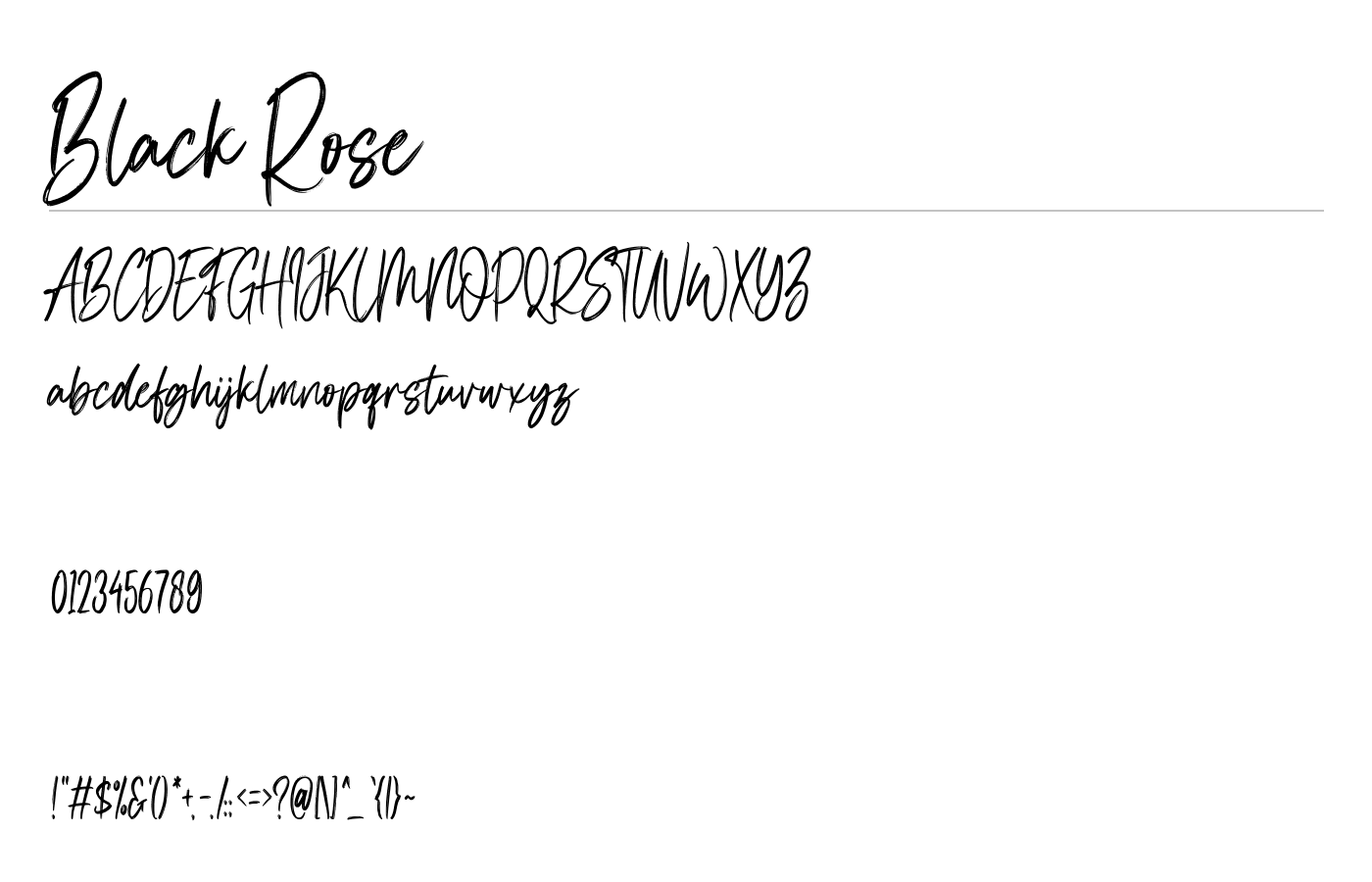
Black Rose is a stylish, handwritten script font characterized by its tall, slender letterforms and smooth, flowing strokes that give it a graceful yet casual feel. Its elegant and slightly playful nature makes it ideal for creative branding, invitations, and modern editorial projects where a personal, artistic touch is desired. This font works well for headlines, logos, and packaging that seek to convey sophistication with a contemporary, approachable vibe.
Black Rose Font
About Black Rose Font
| Font family | Black Rose Font |
| Designer | Siti Nurjanah |